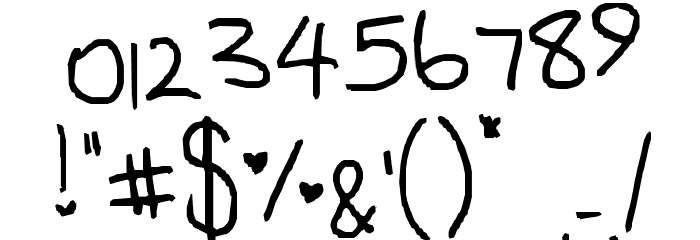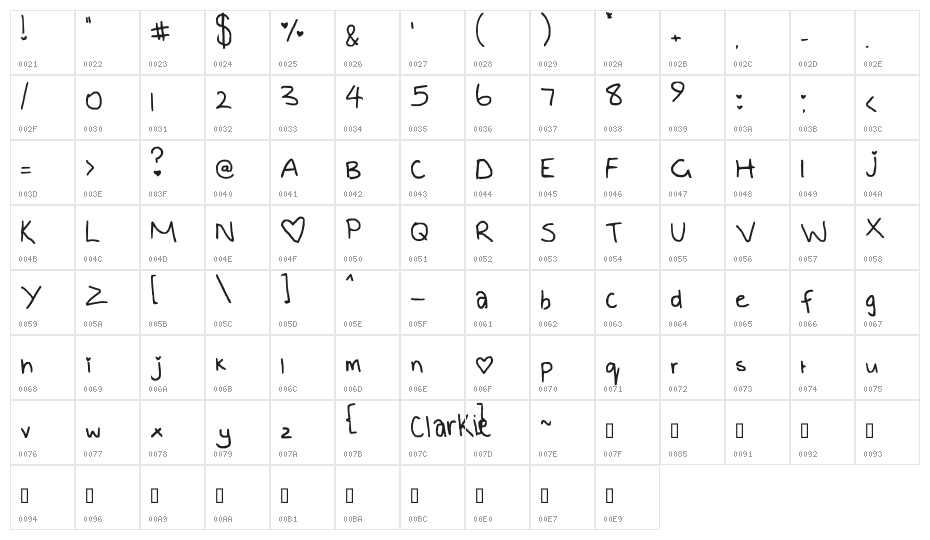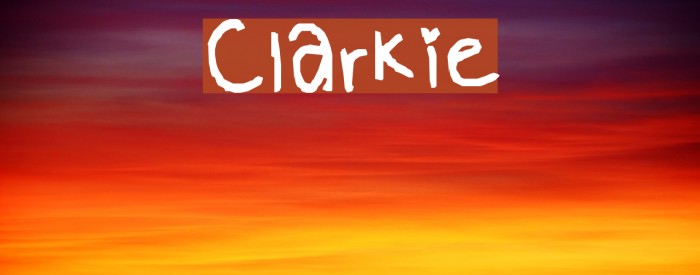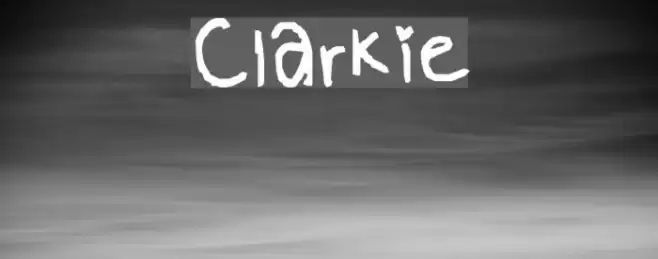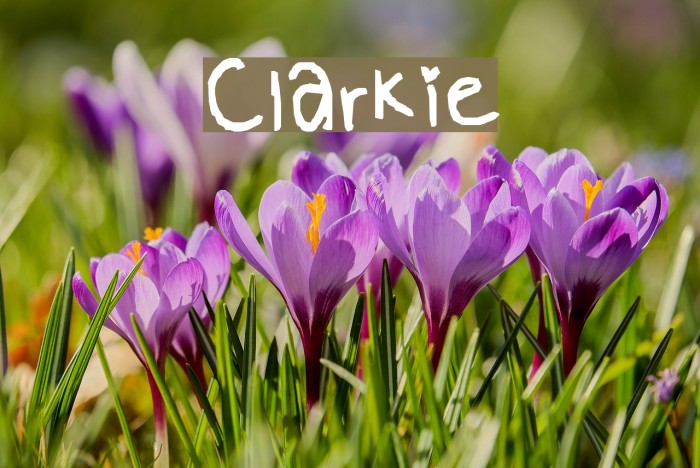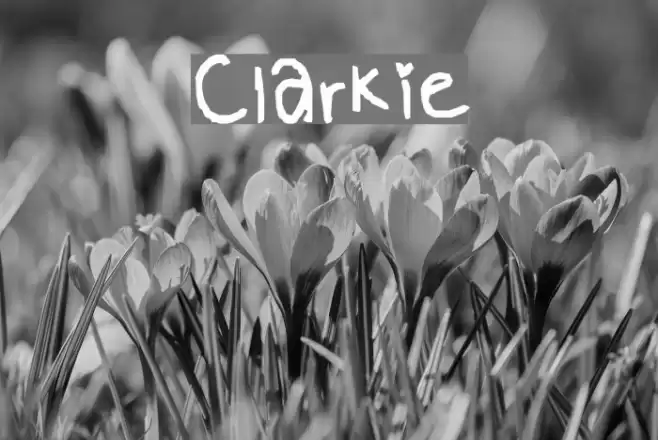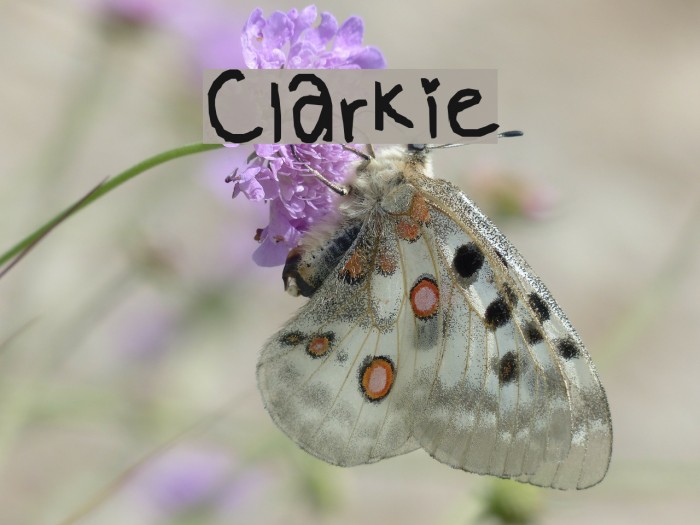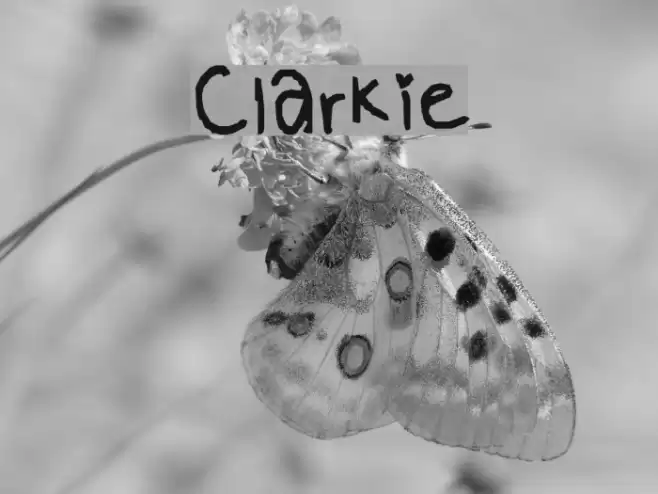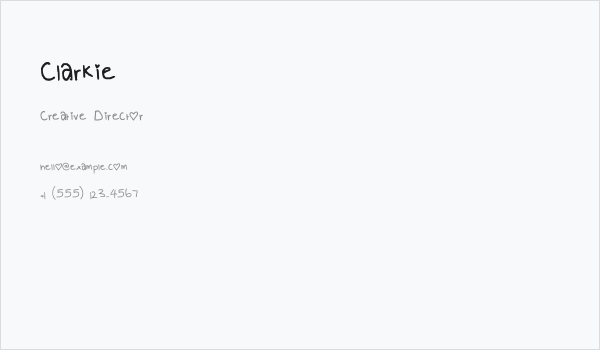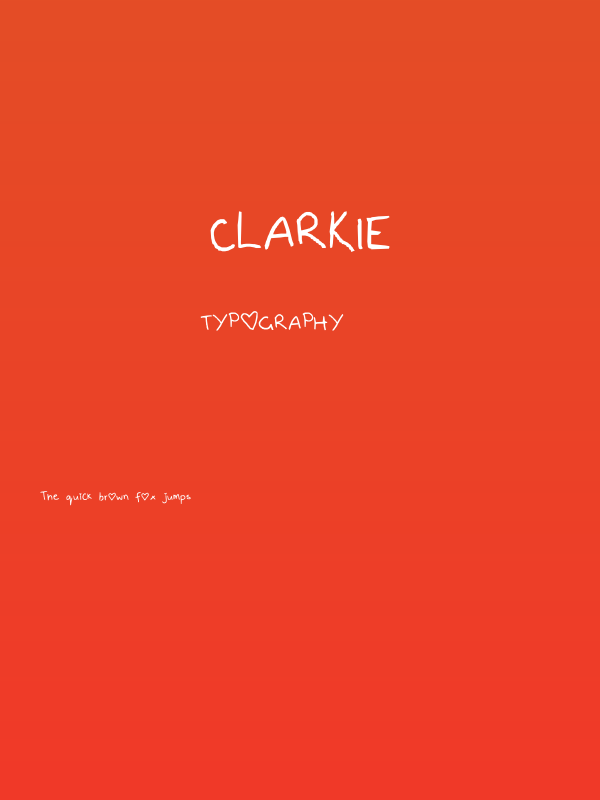
This playful and whimsical font features a handwritten style with a casual, informal appearance. The characters are unevenly sized, adding to its charm and personality. Notably, the font includes heart-shaped elements in place of the letter 'O' and some punctuation, enhancing its unique and quirky aesthetic. The strokes are bold and slightly irregular, giving it a lively and dynamic feel. This font is perfect for projects that require a personal touch or a fun, lighthearted vibe.
| Proposed Projects | Ideal for greeting cards, children's books, playful branding, and DIY crafts. |